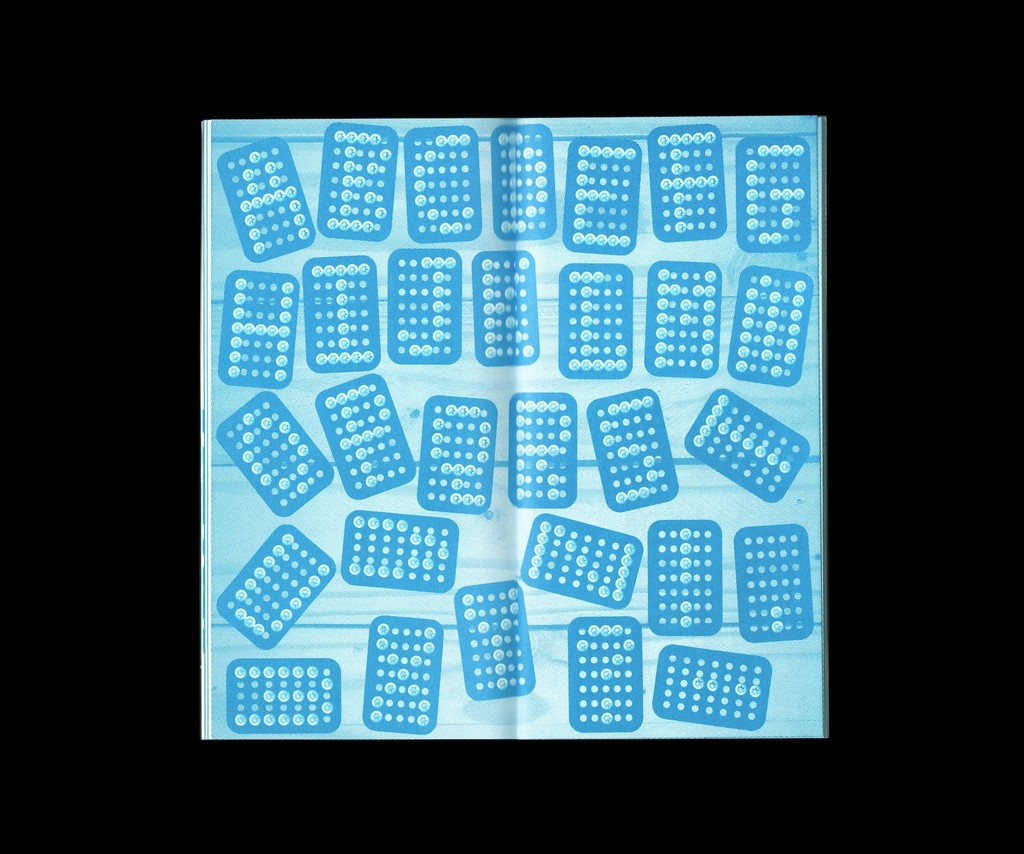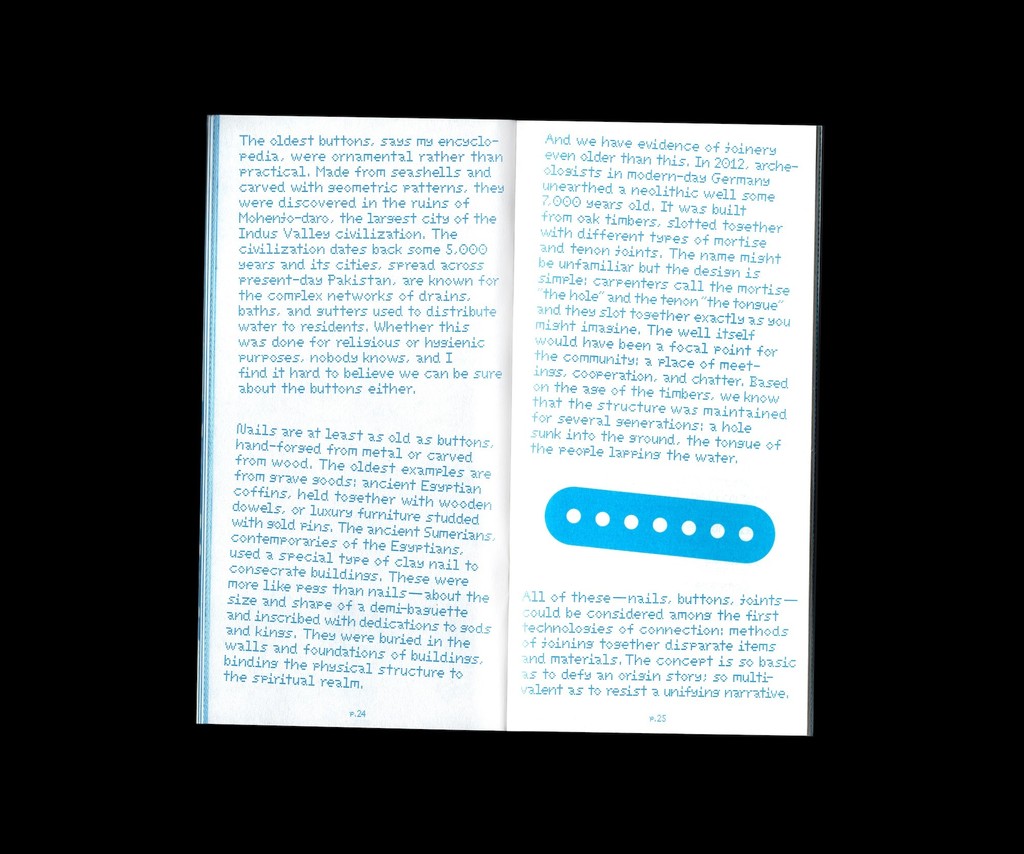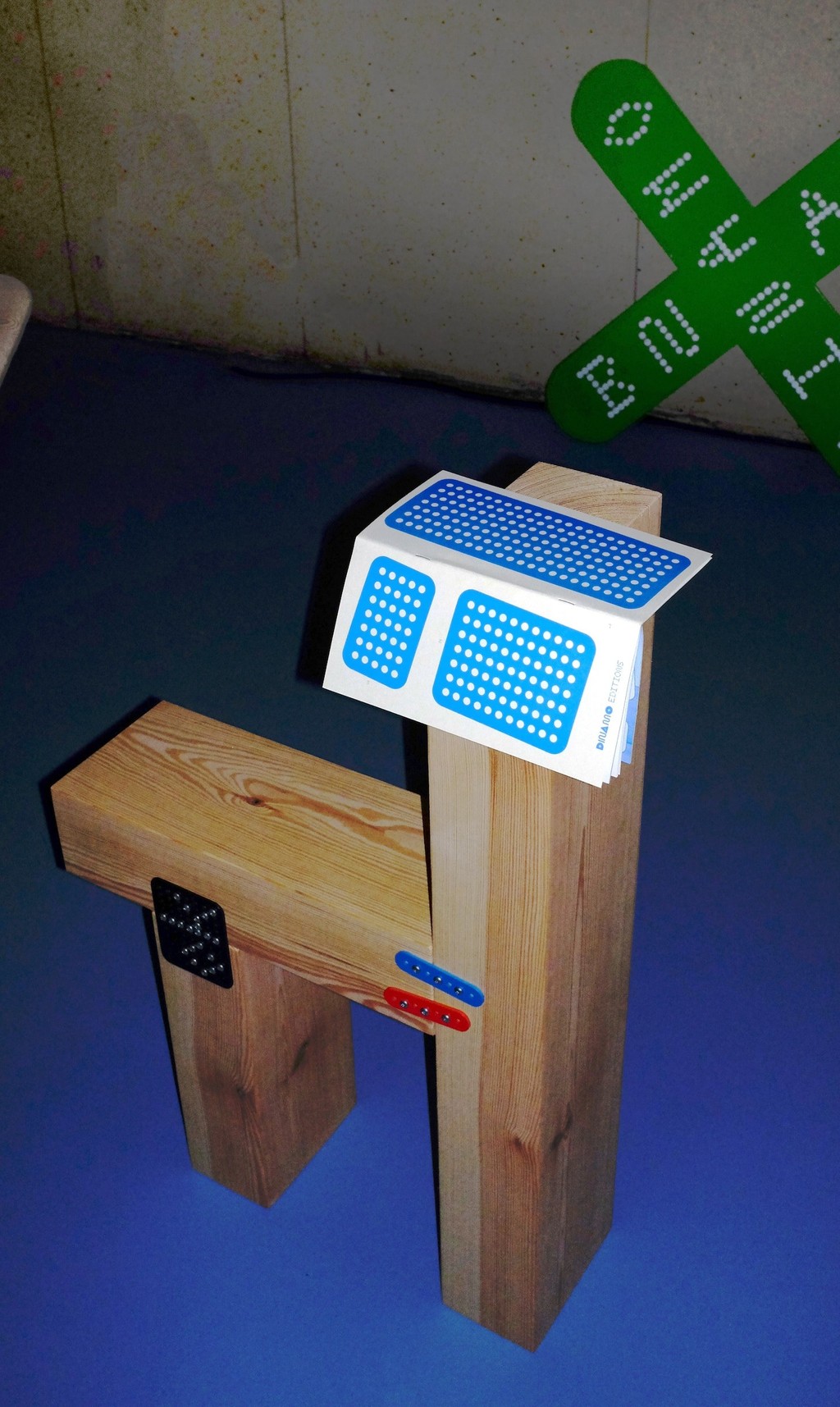
C-o-n-n-e-c-t
What does it mean to connect materially in today’s networked times? C-O-N-N-E-C-T: A Blueprint for Collaboration is an instruction-manual-meets-type-specimen-meets-philsophical-handbook for uniting Dinamo fonts with DIY furniture design by BNAG.
Inside its pages, you’ll find instructions for possible furniture creations made using the grid of our font, as well as “blueprints” for creating letterforms with screws. An essay by technology journalist and author James Vincent, whose 2022 book Beyond Measure was a New Yorker, Times, and Economist “Book of the Year,” offers a prosaic perspective on what physical nearness means in the age of social media.